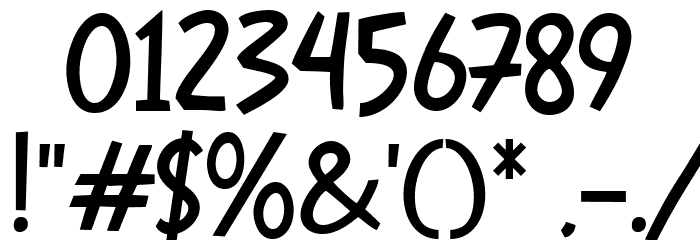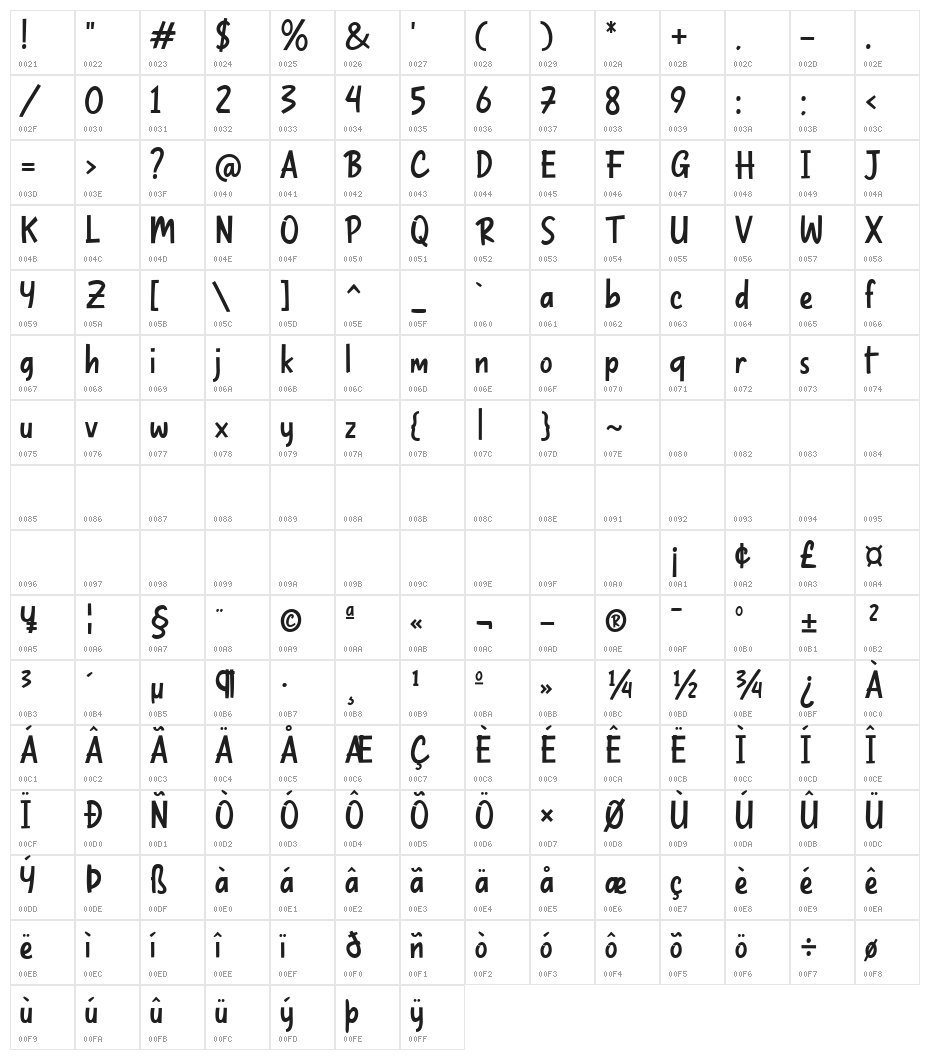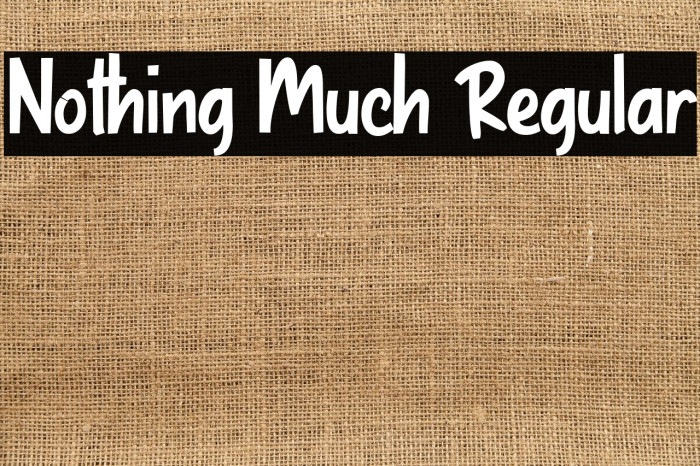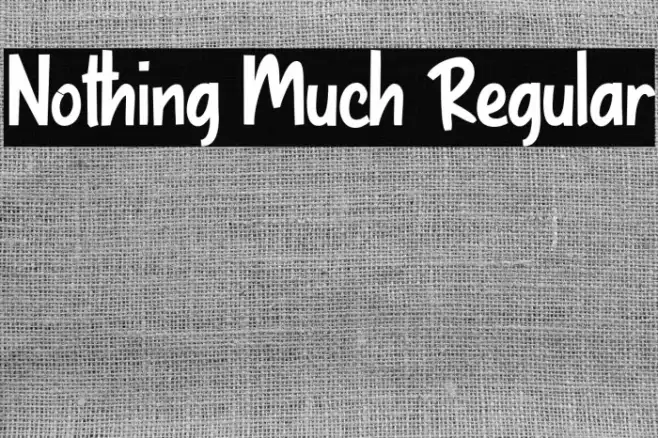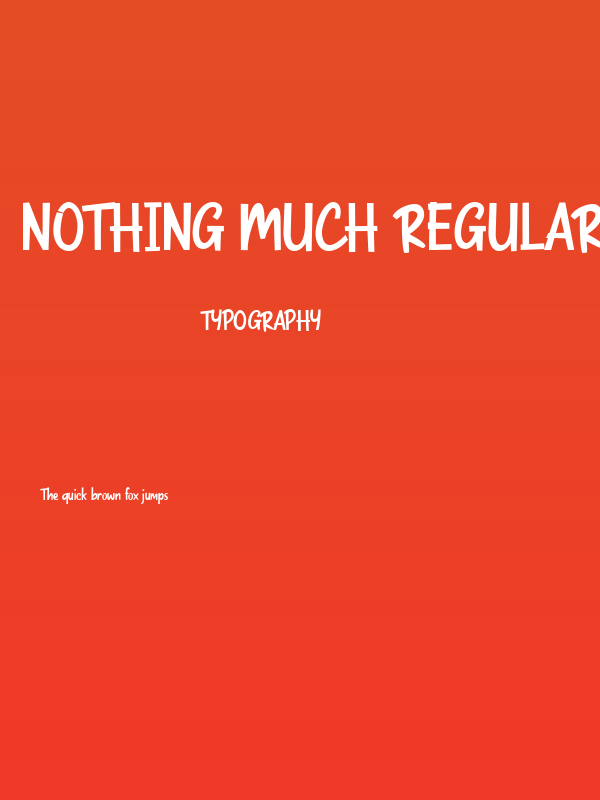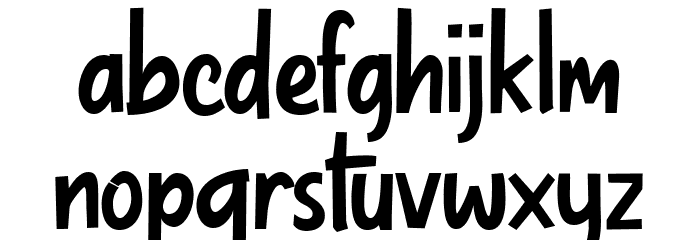
Nothing Much Regular Font
Nothing Much Regular Description
This font features a playful and casual style with a handwritten appearance. The letters are bold and slightly irregular, giving it a friendly and approachable feel. The uppercase characters are tall and slightly narrow, while the lowercase letters maintain a consistent height, adding to the font's readability. The numbers are bold and match the overall style, making them stand out clearly. Special characters are included, maintaining the same playful and bold characteristics. This font is well-suited for projects that require a fun and informal touch.